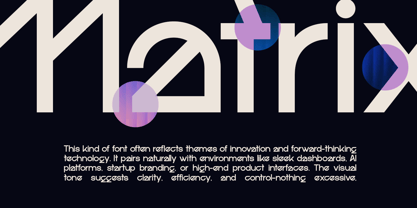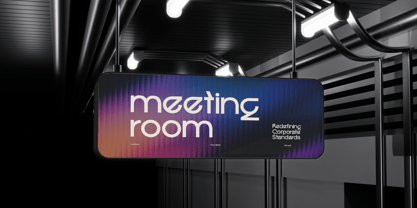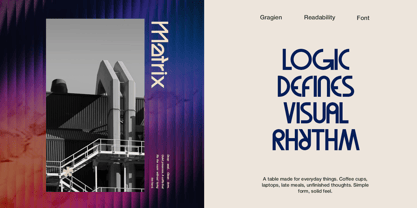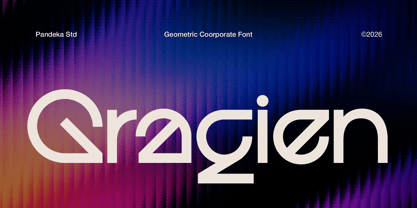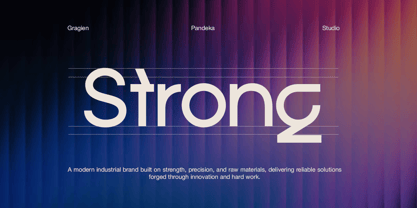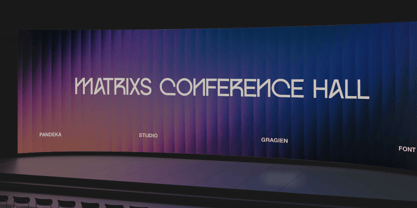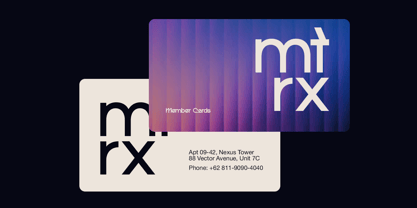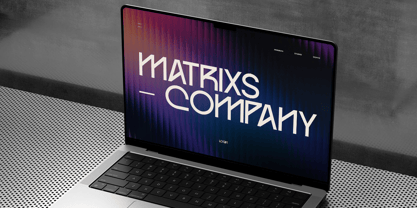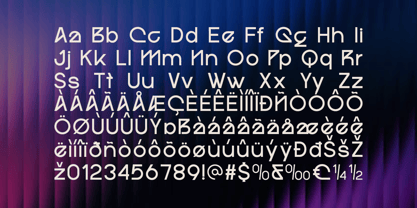
Gragien
by Pandeka Studio
The Gragien Font Family was designed by Sagara Nararya and published by Pandeka Studio. Gragien contains 1 styles. More about this family
Gragien is a clean and modern geometric sans serif designed to deliver a strong corporate presence. Built with precise shapes, smooth curves, and balanced proportions, it reflects clarity, efficiency, and forward-thinking design. Its minimal yet distinctive character makes it ideal for brands that want to appear professional, innovative, and highly structured.
Perfectly suited for corporate identity, tech branding, dashboards, presentations, and digital interfaces, Gragien ensures excellent readability while maintaining a sleek visual tone. This font comes with 1 style: Regular, and includes uppercase, lowercase, numbers, punctuation, and multilingual support, making it a versatile choice for both print and digital applications.